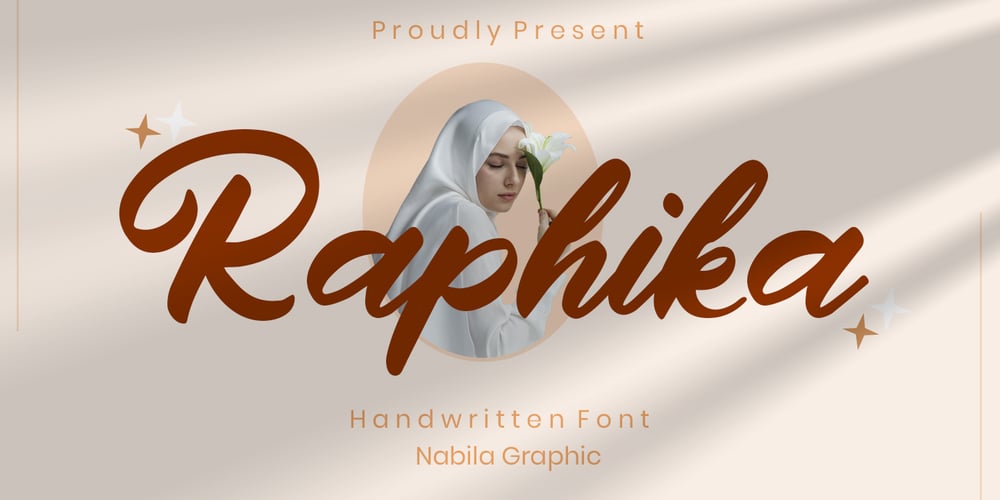
Raphika
Raphika font
Raphika Font Family was designed by Mohamad Candirah and published by MC Creative. Raphika contains 1 styles and family package options. **Raphika** is handwritting script font which natural movement and elegant style.**Raphika** perfect for branding projects, logo, wedding designs, social media posts, advertisements, product packaging, product designs, label, photography, watermark, invitation, stationery and any projects that need handwriting taste.What’s Included :Standard glyphsLigatureWorks on PC & MacSimple installationsAccessible in the Adobe Illustrator, Adobe Photoshop, Adobe InDesign, even work on Microsoft Word.PUA Encoded Characters – Fully accessible without additional design software.Fonts include multilingual support for; ä ö ü Ä Ö Ü ß ¿ ¡